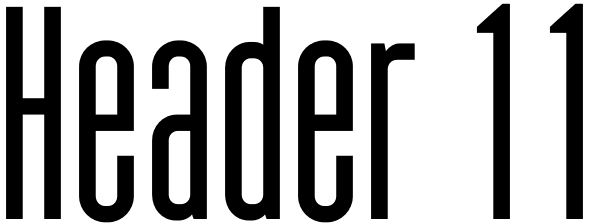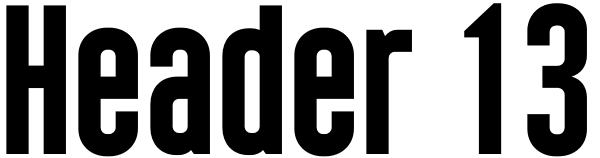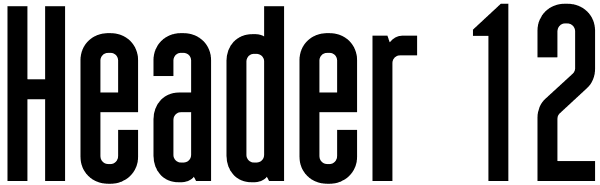
Header
Useful for newspaper and magazine headlines, a must for all kinds of impacting posters. Header includes hybrid glyphs encoded where small caps are normally found.